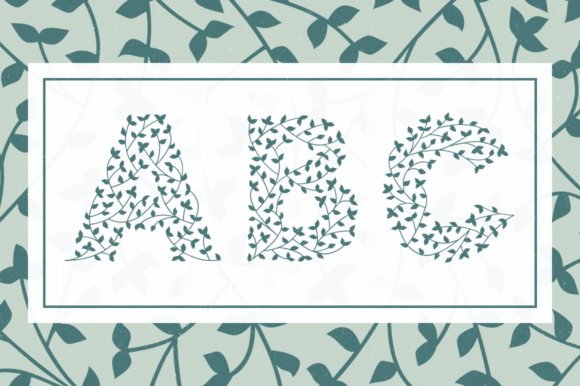
Introducing the Herbaceous Border Font - An Exquisite Creation of Nature-Inspired Elegance
Step into a world where nature's beauty intertwines with the art of typography, presenting the Herbaceous Border Font. This decorative font family is a masterpiece meticulously crafted by laurenashpole, captivating imaginations with its intricate tapestry of leaves and vines.
Adorn your designs with the Herbaceous Border Font and watch as words transform into verdant landscapes. Its blocky letters, adorned with delicate illustrations, create a visual symphony that dances across the page, demanding attention and admiration.
Unleash the boundless possibilities of the Herbaceous Border Font. Adorn headlines with its intricate details, allowing them to blossom into captivating focal points that command attention. Utilize the lowercase characters as an alternative leafy haven, adding a touch of organic charm to your text.
Immerse yourself in the intricate details of the Herbaceous Border Font. Each letter is a testament to the artistry and precision that went into its creation. The harmonious blend of bold lines and delicate flourishes evokes a sense of enchantment, transporting you to a realm where nature and creativity converge.